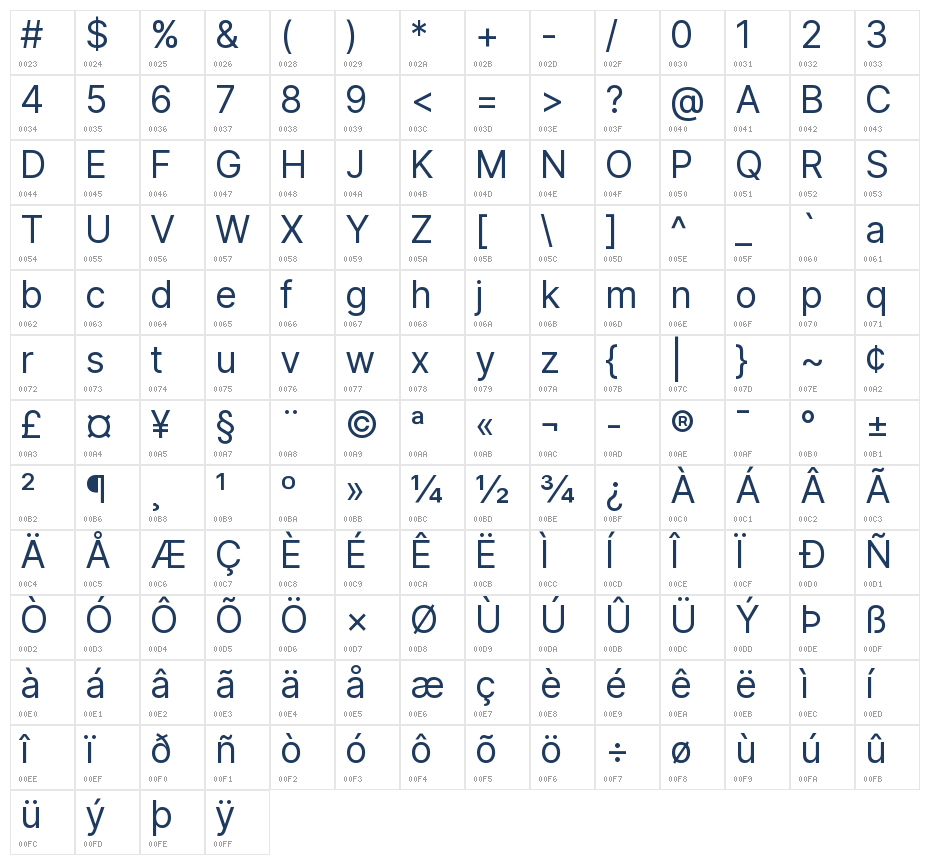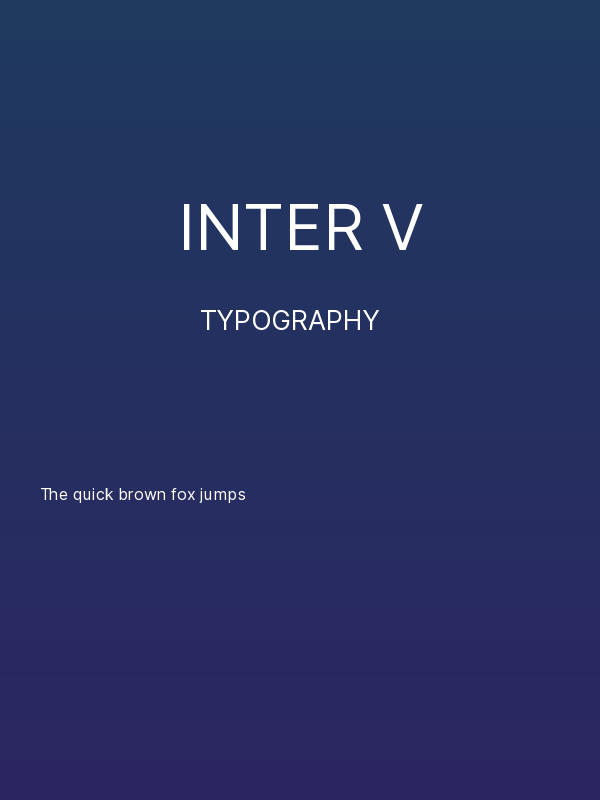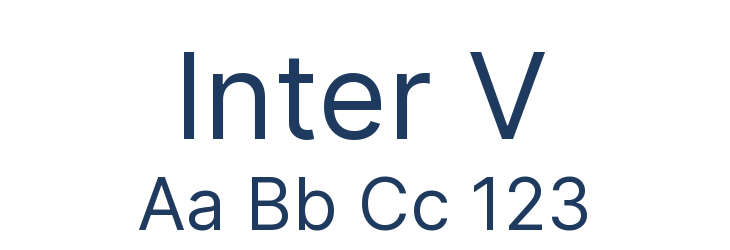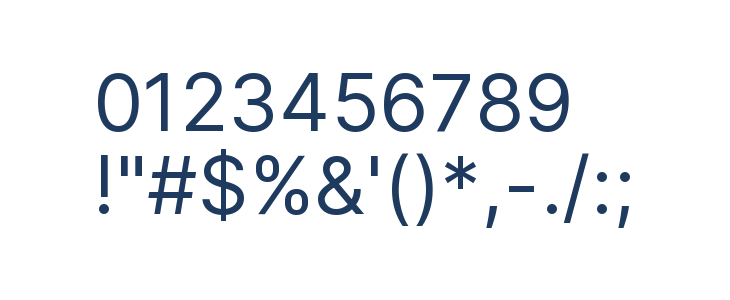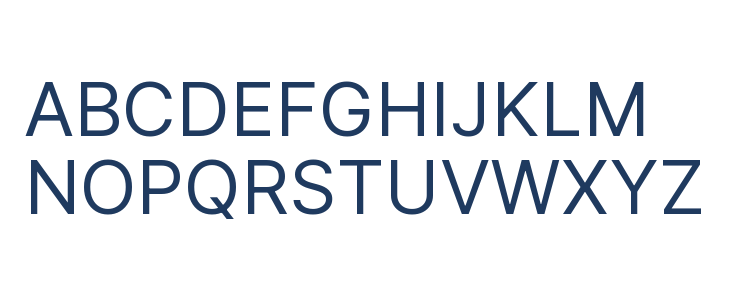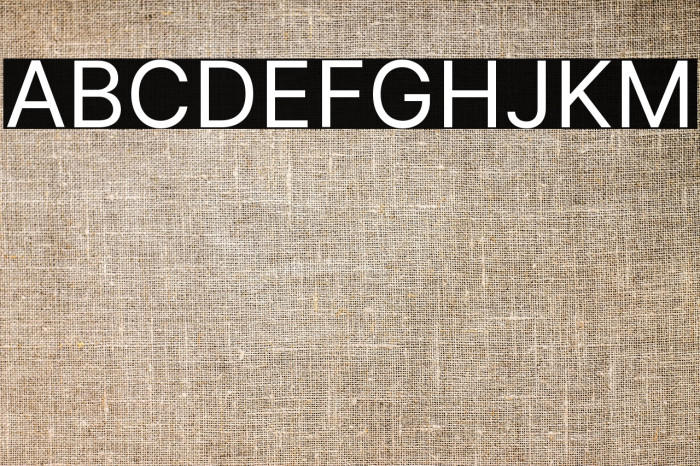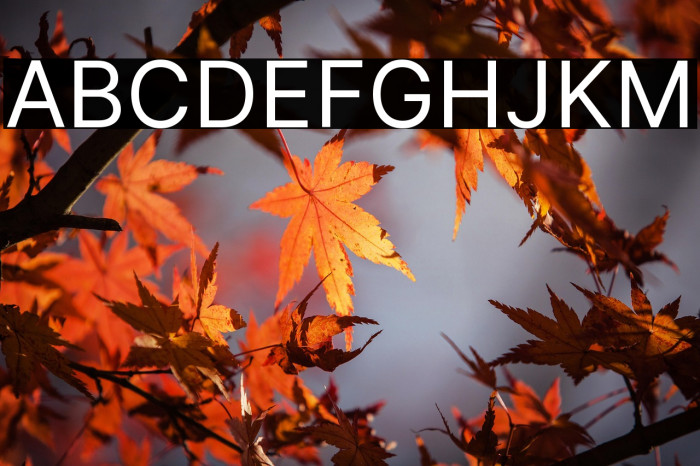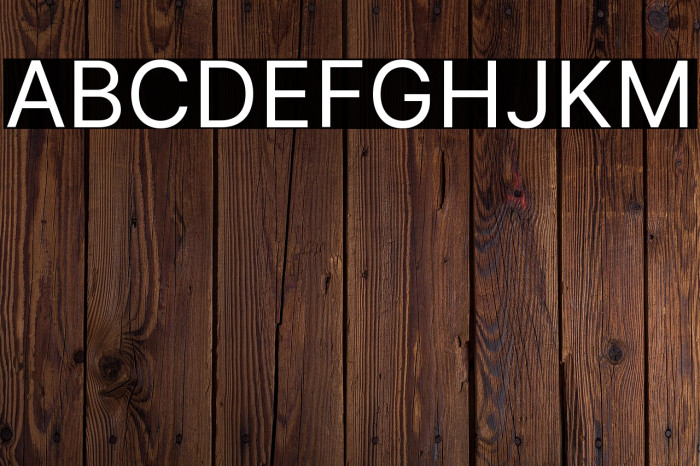
Inter V Font
Inter V Description
A clean, modern sans-serif font with uniform stroke width and rounded edges, suitable for contemporary design.
| Overall Style | Modern, Minimalist |
| Use Case | Headlines, Body text, Logos, User interfaces |